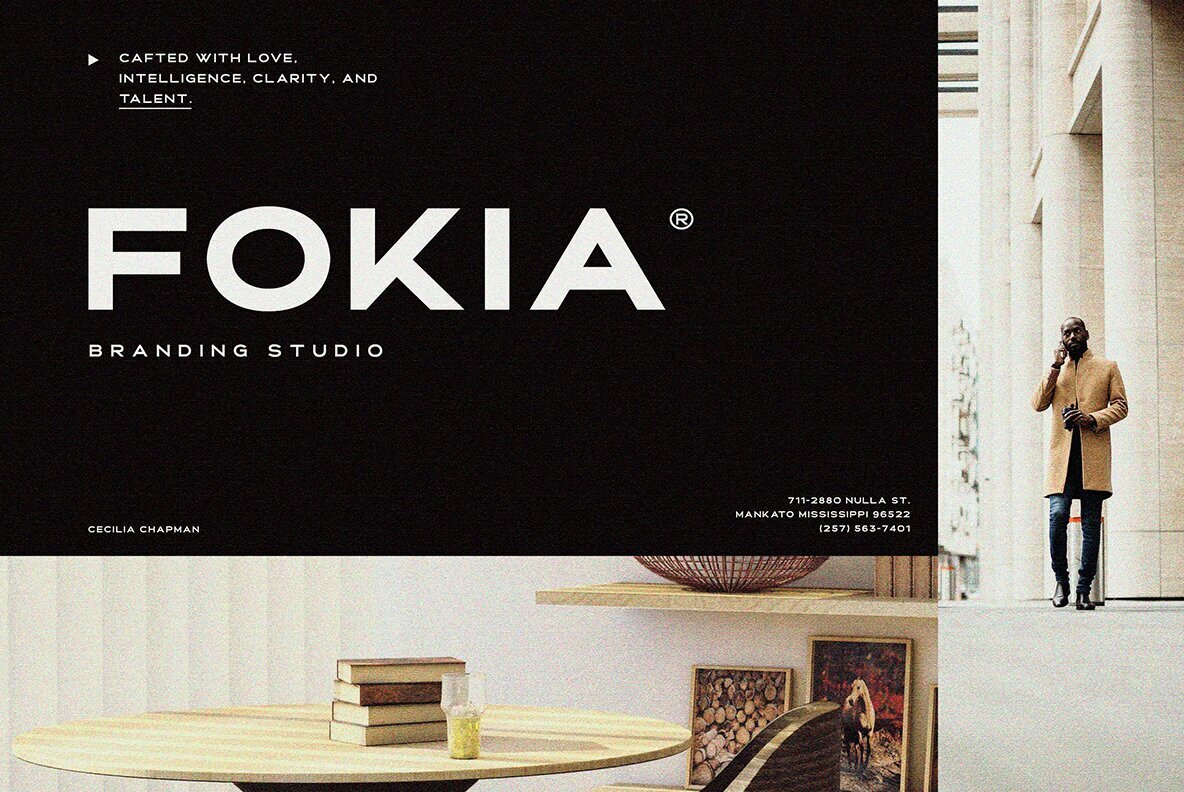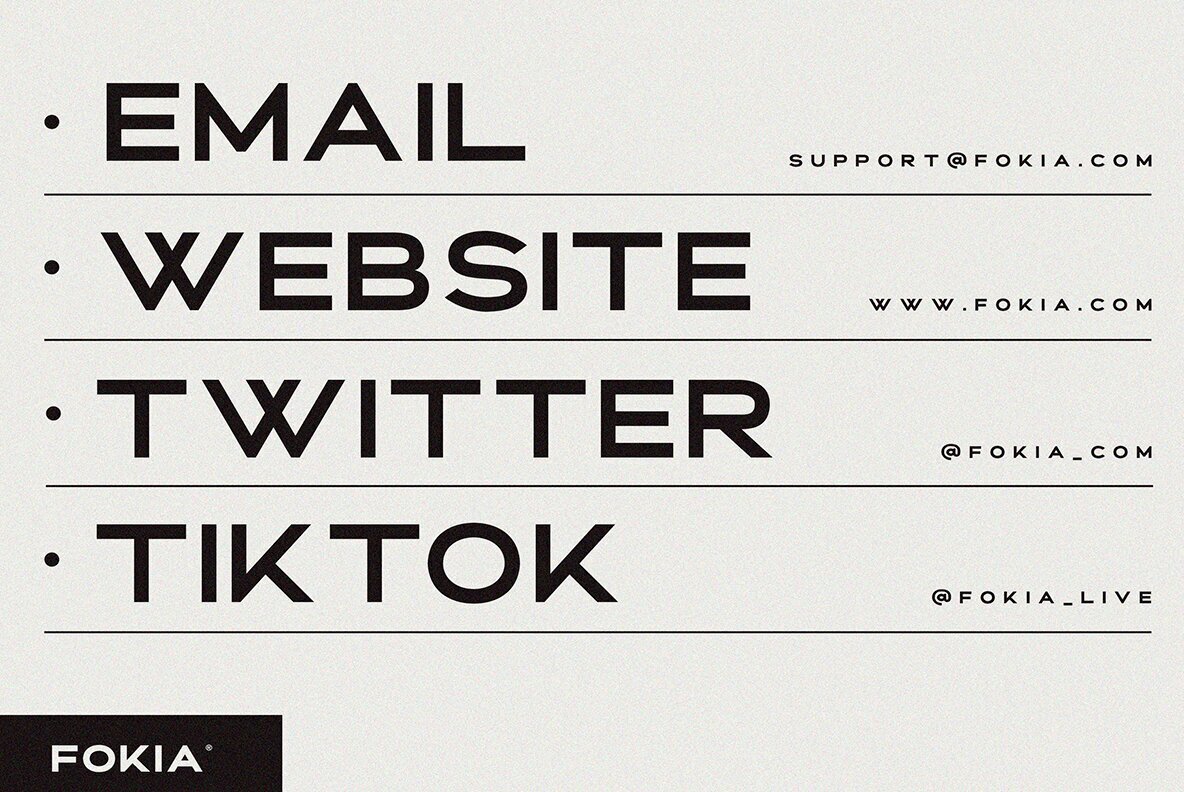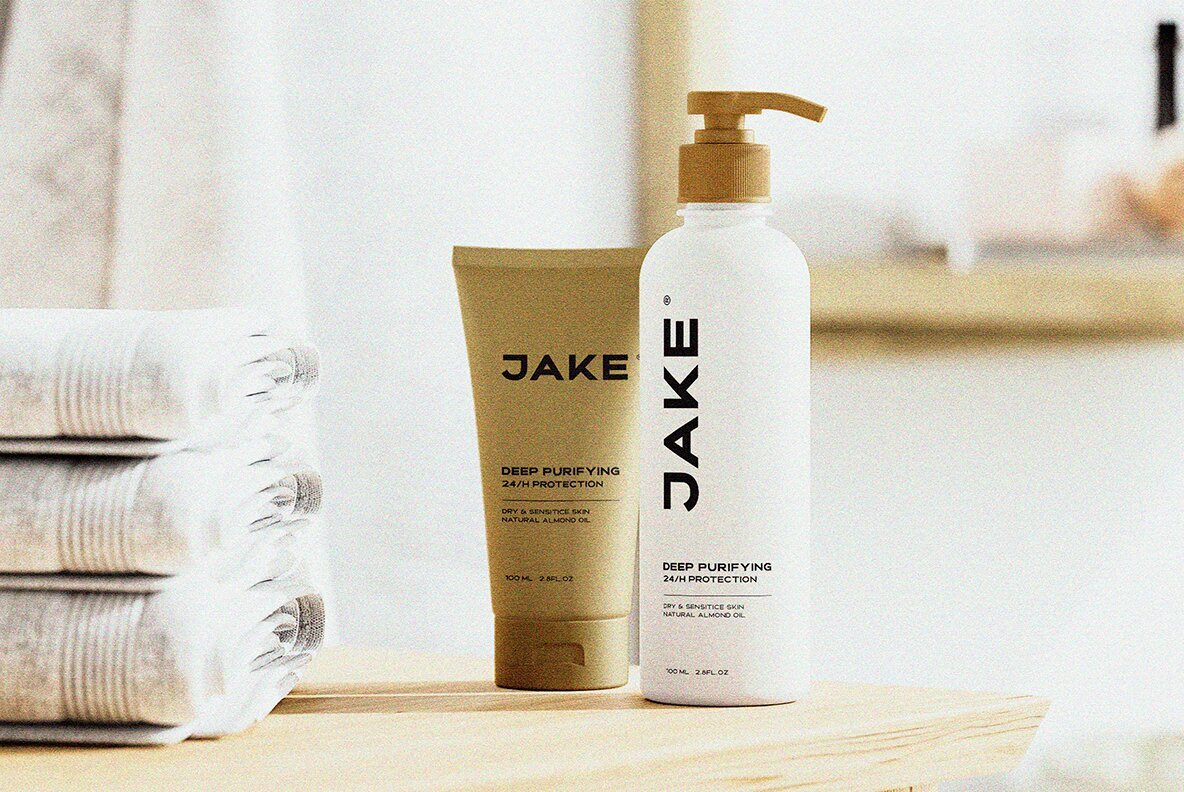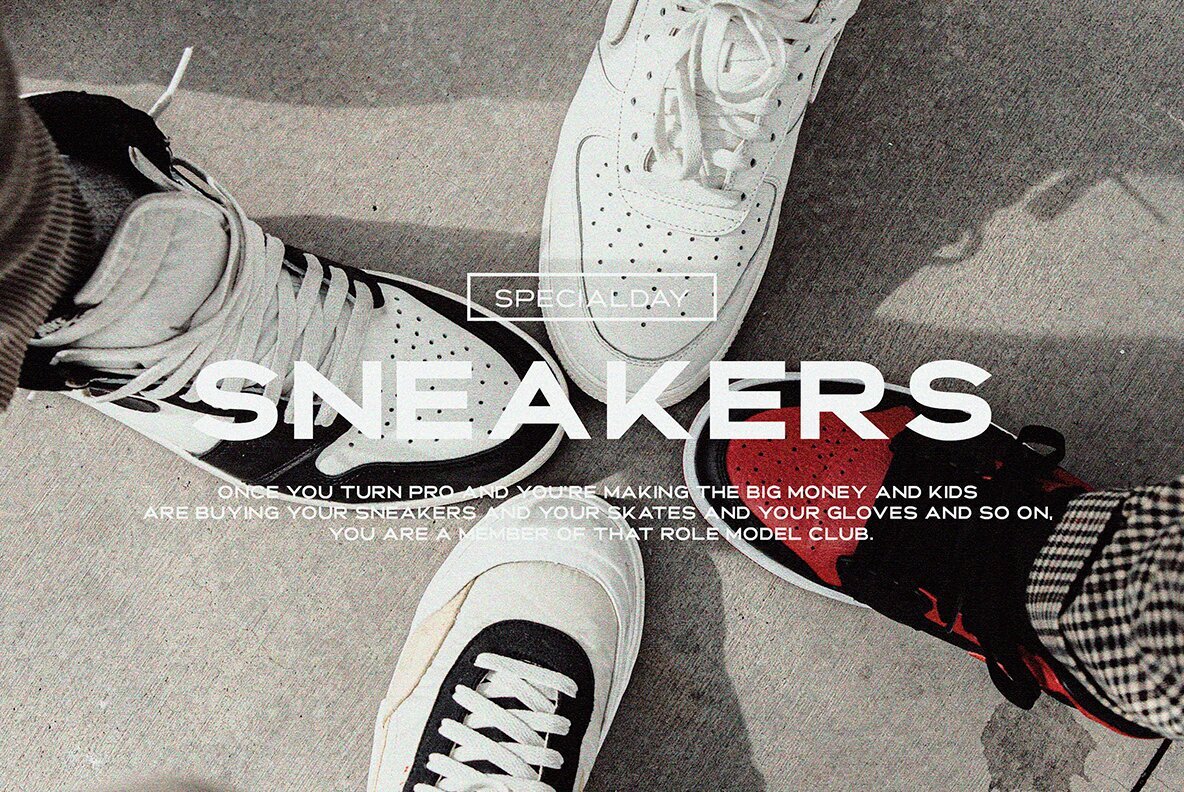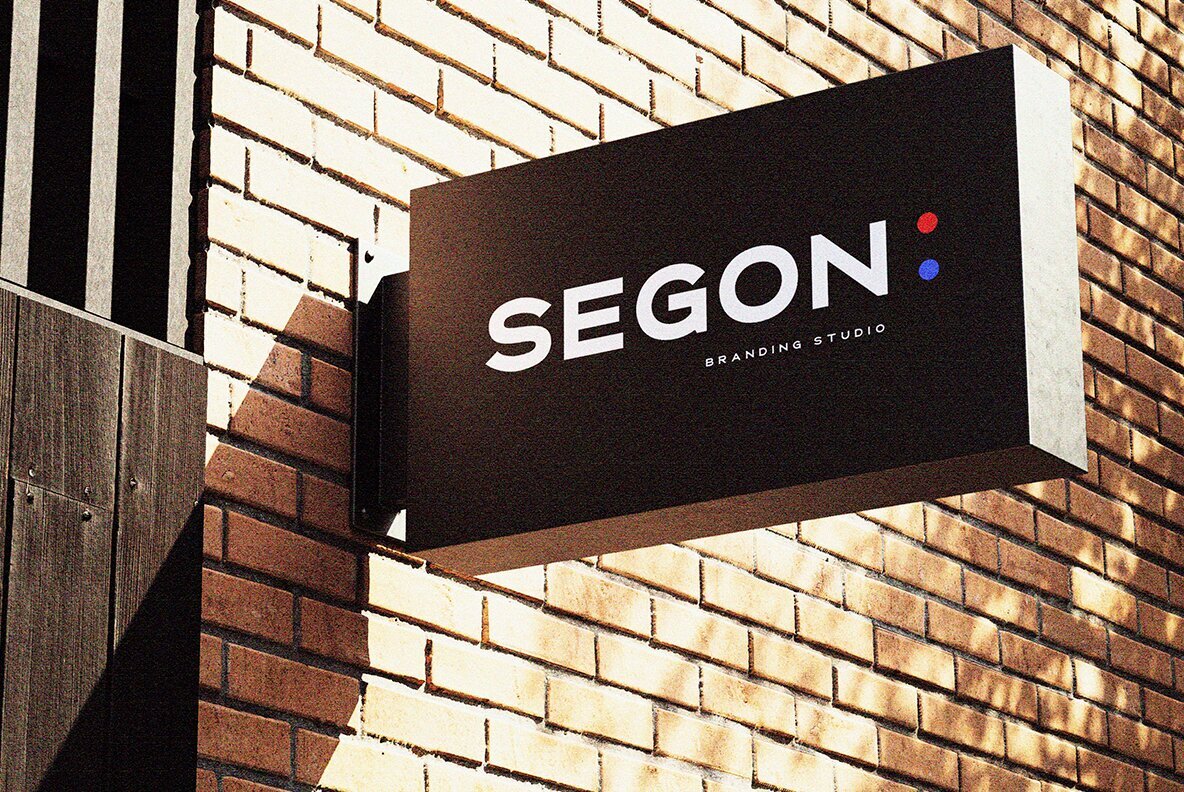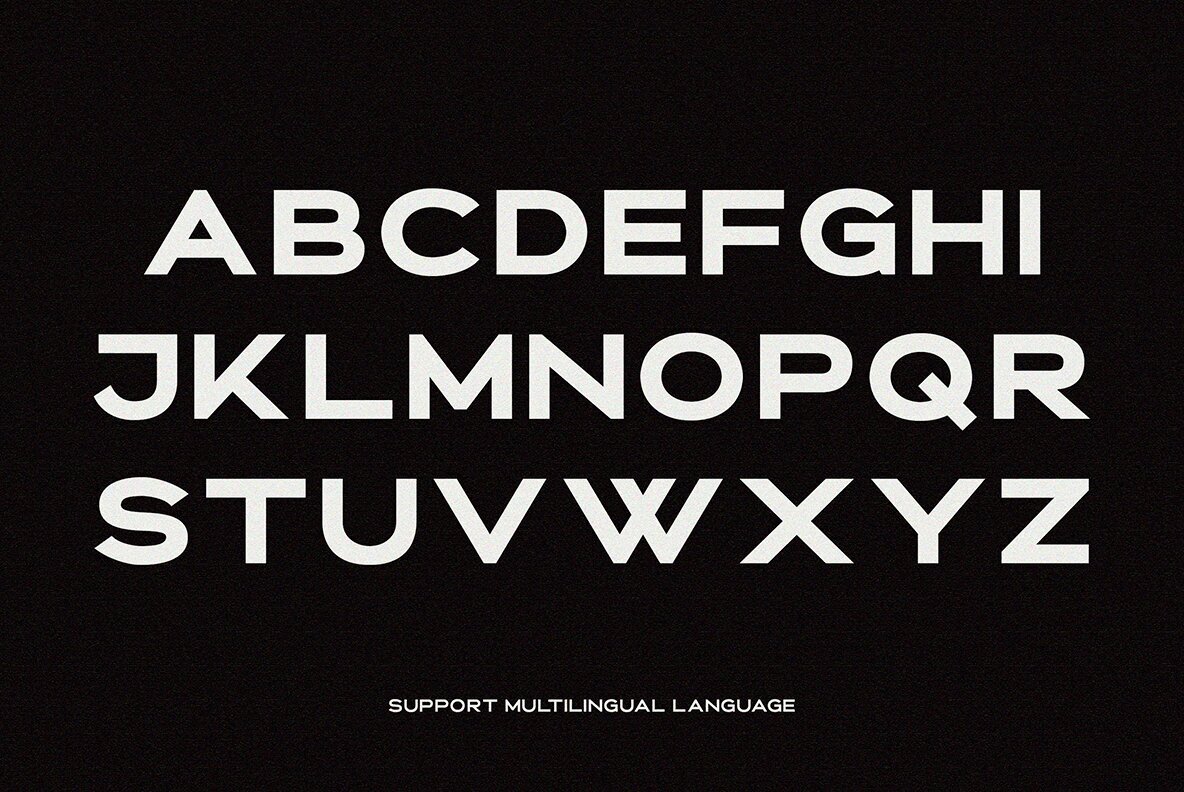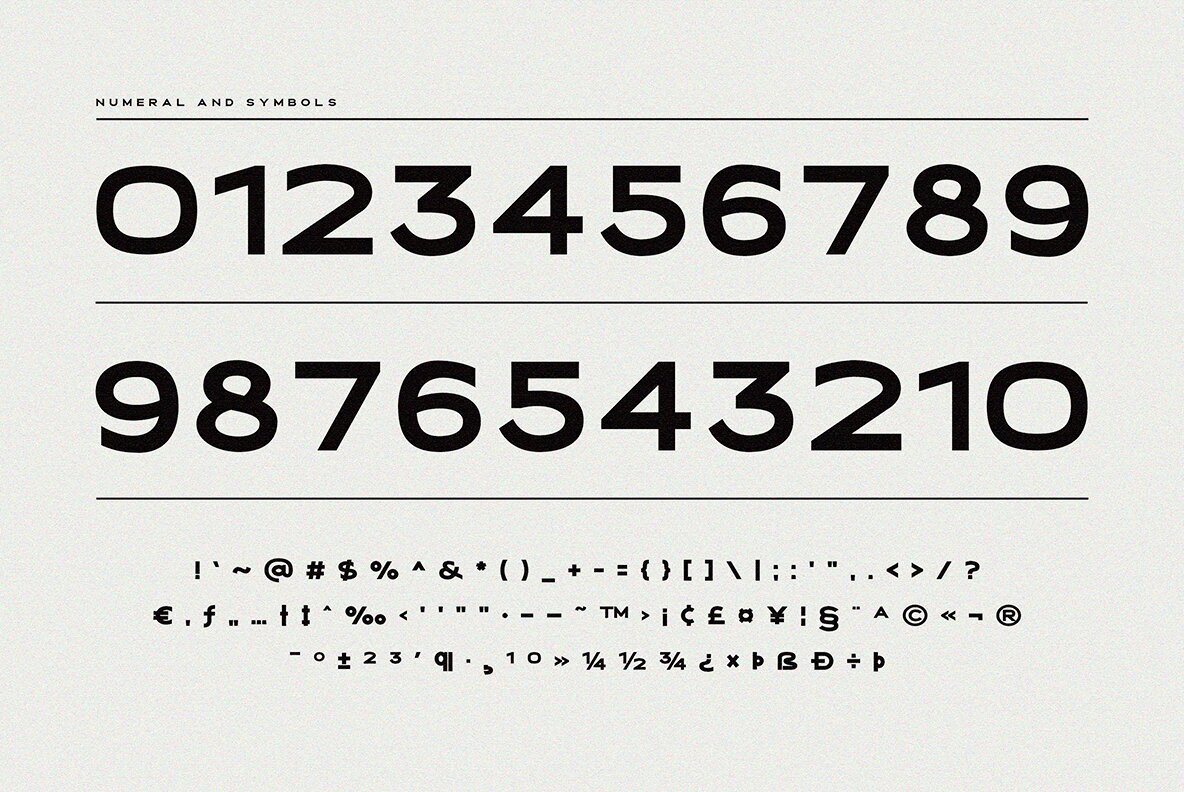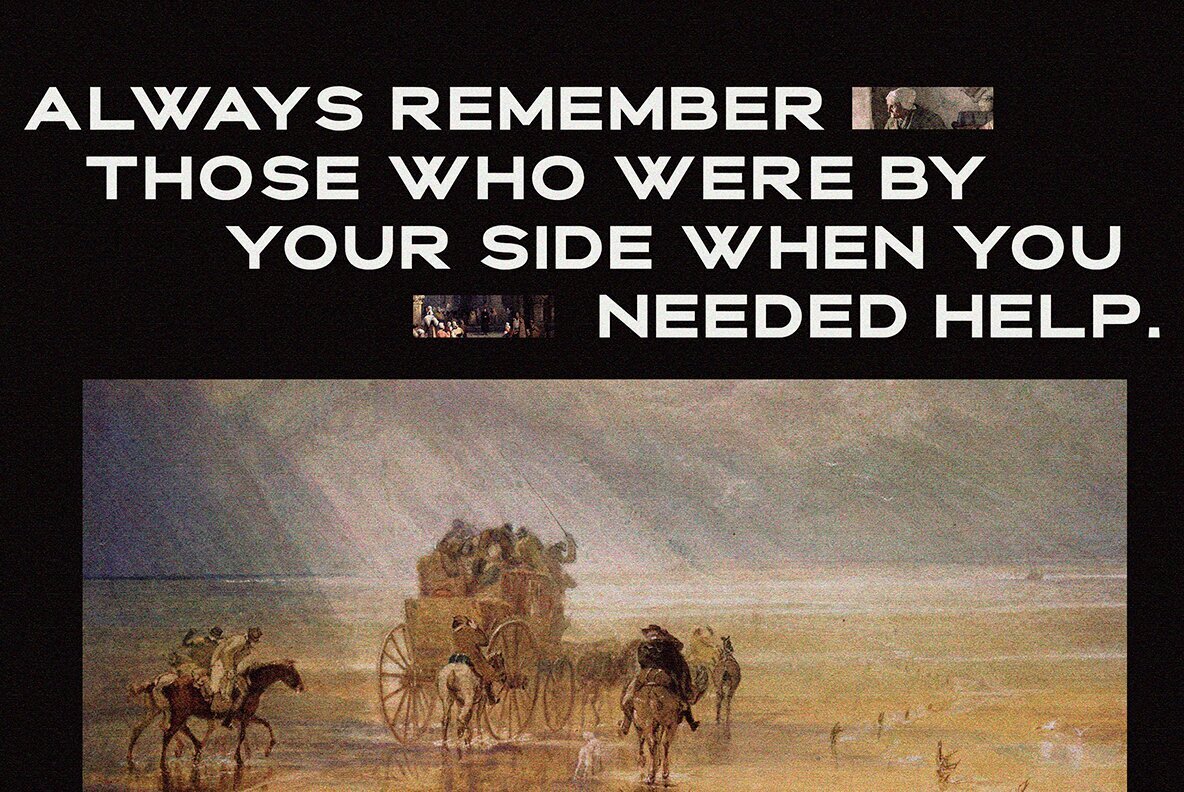
Kento Font
Kento Light
Kento Regular
Kento Bold
Kento brings a touch of classic elegance to your design projects. Its slightly stretched form offers a subtle yet powerful presence, making it ideal for leaving a memorable impression in branding. Simple yet luxurious, Kento stands out as an exceptional choice for diverse creative applications.Kento: A Luxuriously Simple Typeface With Classic Appeal